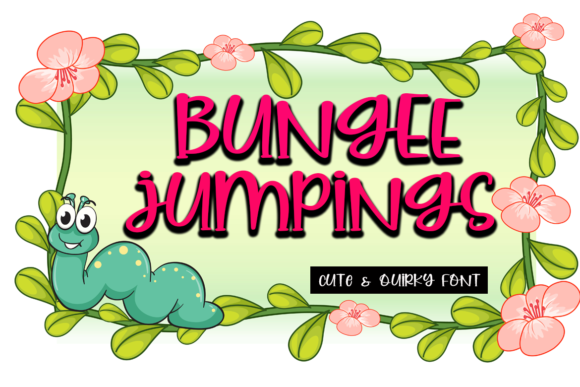
The Perfect Spring to Creativity
Have you ever stared at a blank canvas, feeling the weight of expectation, and suddenly, a burst of excitement takes over? You grab your favorite pen, and the ideas start flowing. That’s exactly what we’re going to talk about – unleashing your creativity and adding a dash of joy to your designs.
Meet Bungee Jumpings Font, a delightful display font that’s sure to put a smile on your face. With its playful and quirky nature, this font is designed to bring an incredibly joyful touch to your designs. Whether you’re working on a branding project, creating a social media graphic, or simply adding some fun to your blog, Bungee Jumpings Font is the perfect addition to elevate your ideas.
As a designer, you’re always on the lookout for unique elements to make your work stand out. Bungee Jumpings Font is a valuable asset that will help you achieve just that. So, get ready to take your designs to new heights with this charming display font!
Bungee Jumping Font Key Features
- Font Family: Bungee Jumping Font is a sans-serif font family designed for display purposes, ideal for use in headings, titles, and other large text elements.
- Character Set: The font includes a comprehensive character set, covering a wide range of languages, including Latin, Cyrillic, and Greek alphabets, as well as various punctuation marks and symbols.
- Unique Characteristics: Bungee Jumping Font features a distinctive, energetic design with a dynamic feel, making it perfect for use in action-packed and adventurous contexts, such as sports, gaming, and entertainment.
Bungee Jumpings Font Review
Overall, I think Bungee Jumpings Font has some great qualities that make it a fun and energetic choice for certain projects. ✨ The bold and playful feel of the font is perfect for headings and titles that need to grab attention. It’s also great for creating a sense of excitement and adventure, which is fitting for a font named after a thrilling activity.
- Works well for headings and titles
- Perfect for creating a sense of excitement and adventure
- Playful and fun feel
However, I do have some concerns about the font’s limitations. ⚠️ The font’s boldness can sometimes make it difficult to read, especially in smaller sizes. Additionally, the font’s irregular shape can be a bit jarring for some users. I’ve also noticed that the font doesn’t work as well in certain contexts, such as in body text or in situations where a more subtle font is needed.
- Can be difficult to read in smaller sizes
- Irregular shape can be jarring for some users
- Not suitable for body text or subtle contexts
Overall, I think Bungee Jumpings Font is a great choice for projects that need a bold and energetic feel. However, it’s not a one-size-fits-all solution, and users should be aware of its limitations before using it.
Bungee Jumping Font: A Practical Application Guide
Tips for Getting the Most Out of Bungee Jumping Font
Use the font in bold or italic styles to add emphasis to your text.
Combine the font with other bold or playful fonts to create a unique visual effect.
Use the font to create attention-grabbing titles and headings.
The Bungee Jumping font is perfect for:
Adventure and sports designs
Event invitations and announcements
Travel and tourism marketing
Any design project that needs a bold and playful touch